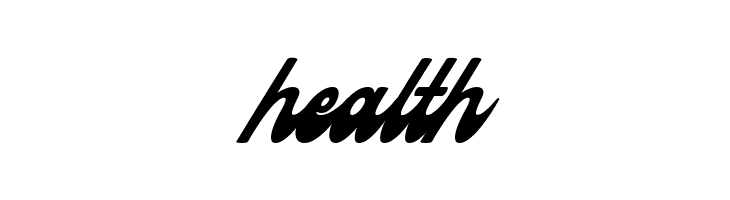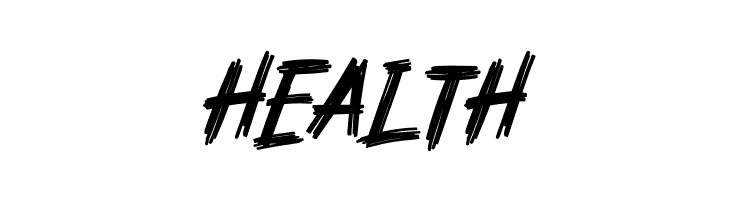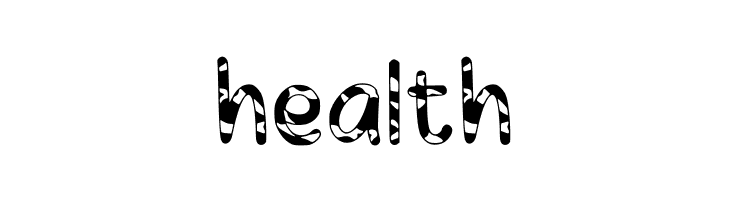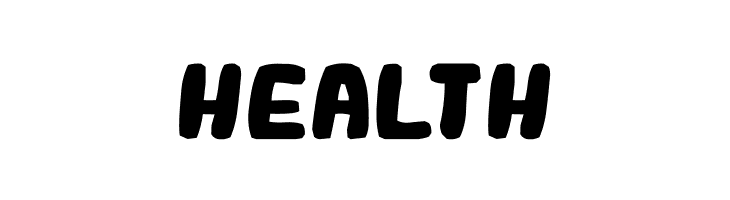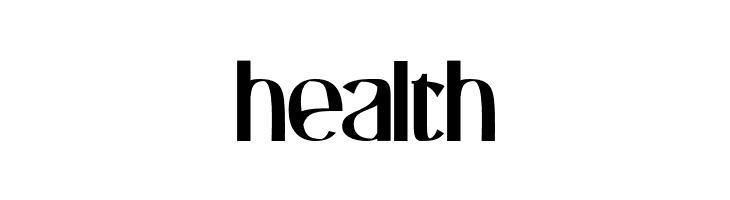
An elegant, flowing script font with a cursive, handwritten style.
A bold, high-contrast font ideal for impactful headlines and titles.
A bold, handwritten-style font with dynamic and playful characteristics.
A bold, cursive font with interconnected letters and playful flourishes.
A bold, brush-style font with an energetic and hand-drawn appearance.
A playful handwritten font with rounded, irregular letterforms.
A playful, bold script font with a hand-drawn, whimsical style.
A playful, cow-patterned font with rounded, bold characters.
A playful, bold font with rounded edges and a hand-drawn feel.
A bold, modern font with sharp angles and smooth curves, perfect for impactful designs.